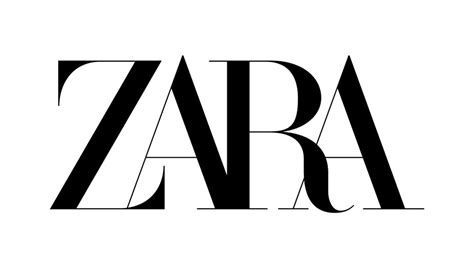
Discover the iconic font for Zara. Learn about the typography, branding style, and high-fashion serif alternatives used to achieve that signature luxury look.